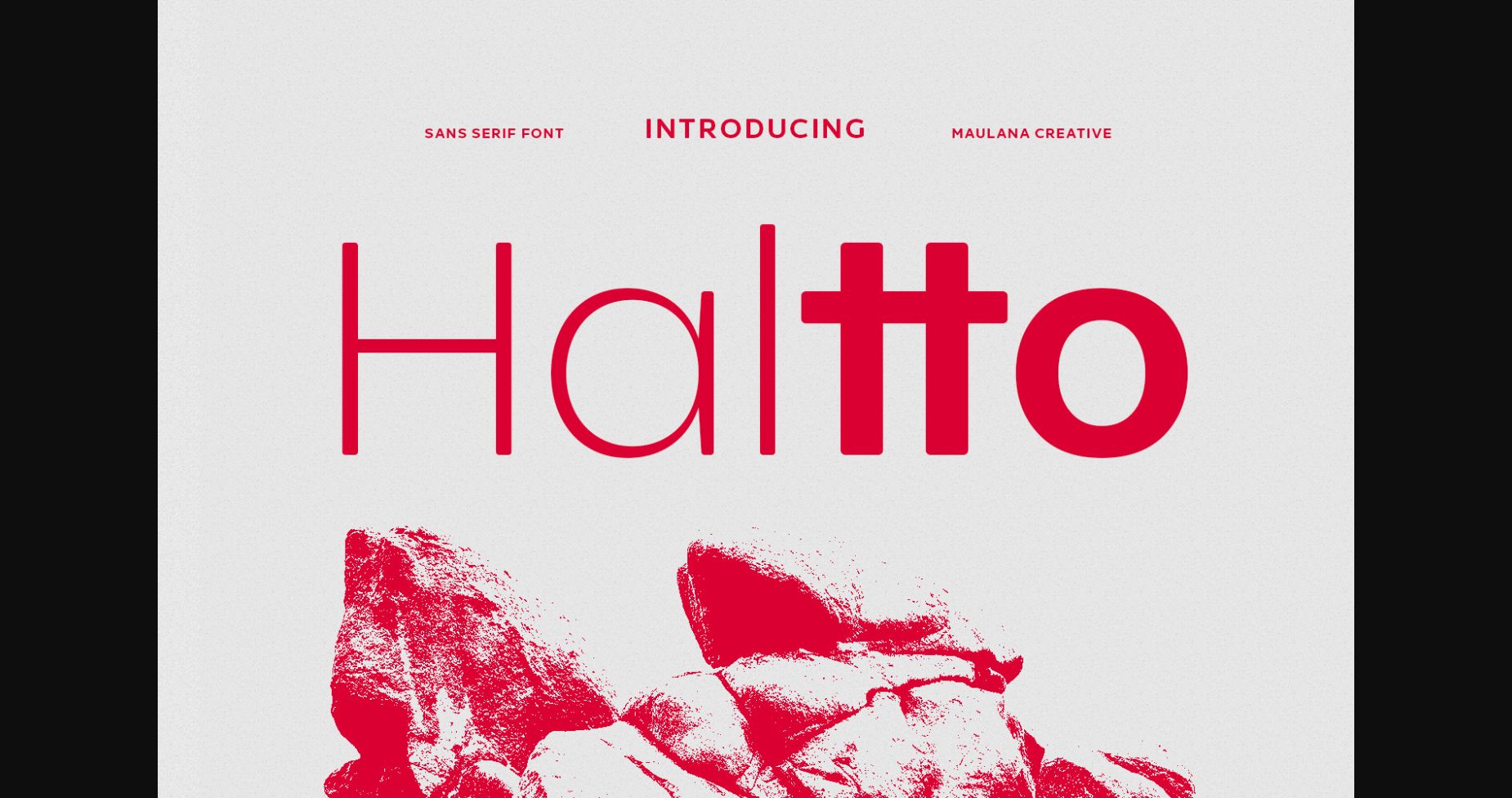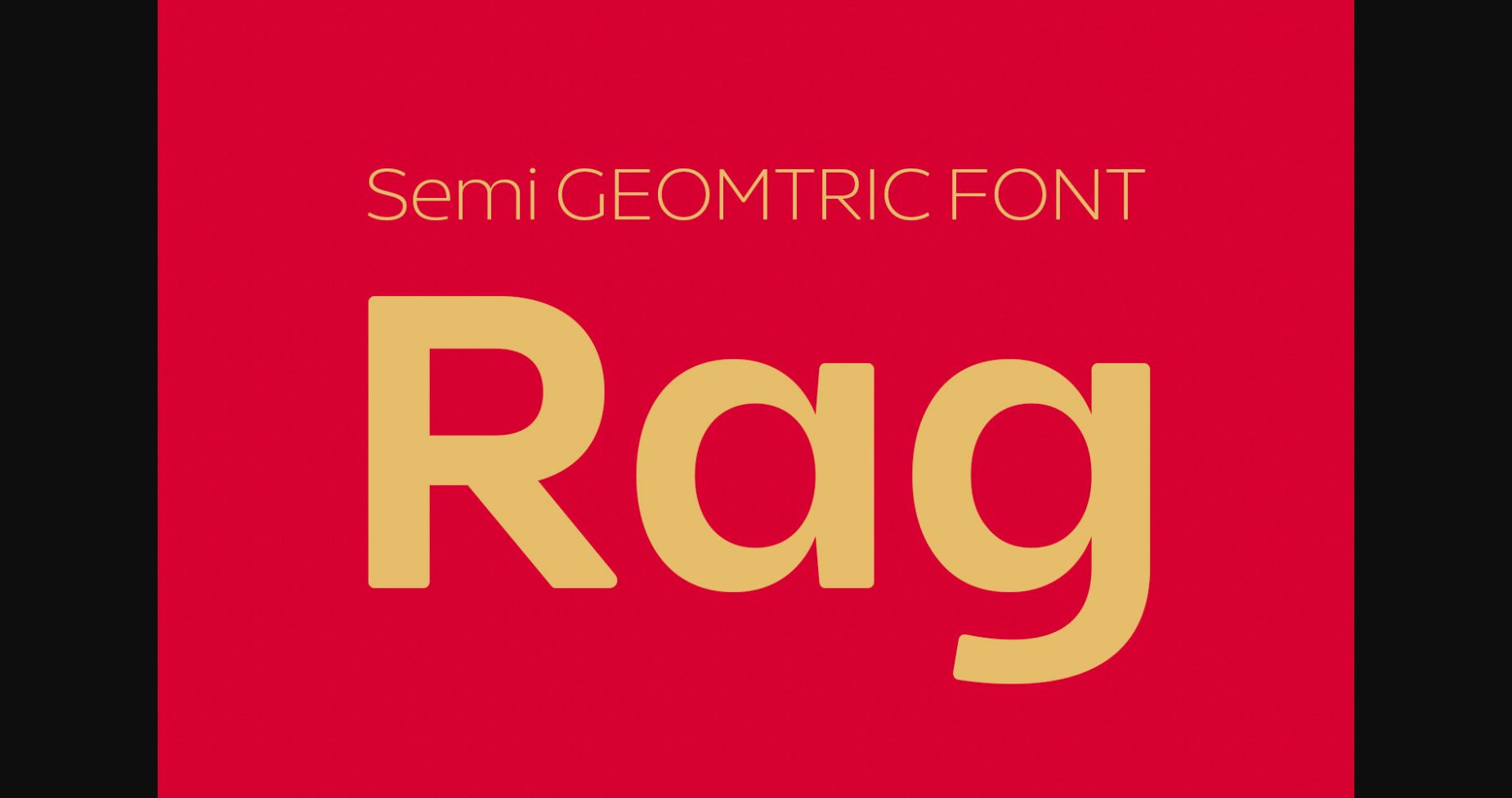
About Haltto Font
Haltto is a sleek and contemporary serif font that exudes a sense of modern sophistication. With its clean and sharp lettering, each character is carefully crafted to convey a sense of elegance and style. Perfect for web design, branding, and editorial, Moderno will add a touch of modernity to any project.